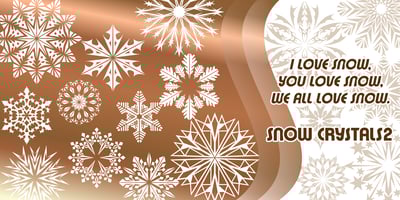
Snow Crystals 2
Snow Crystals 2 font
Snow Crystals 2 Font Family was designed by Denise Koehler and published by Deniart Systems. Snow Crystals 2 contains 1 styles and family package options. Snow, snow and more snow! Deniart’s Snow Crystals 2 typeface is an original design featuring 62 unique symbols. These charming snow crystals are sure to add elegance to all your winter designs – the set includes traditional style snow crystals. This font comes with a PDF guide to put all these special characters right at your fingertips!